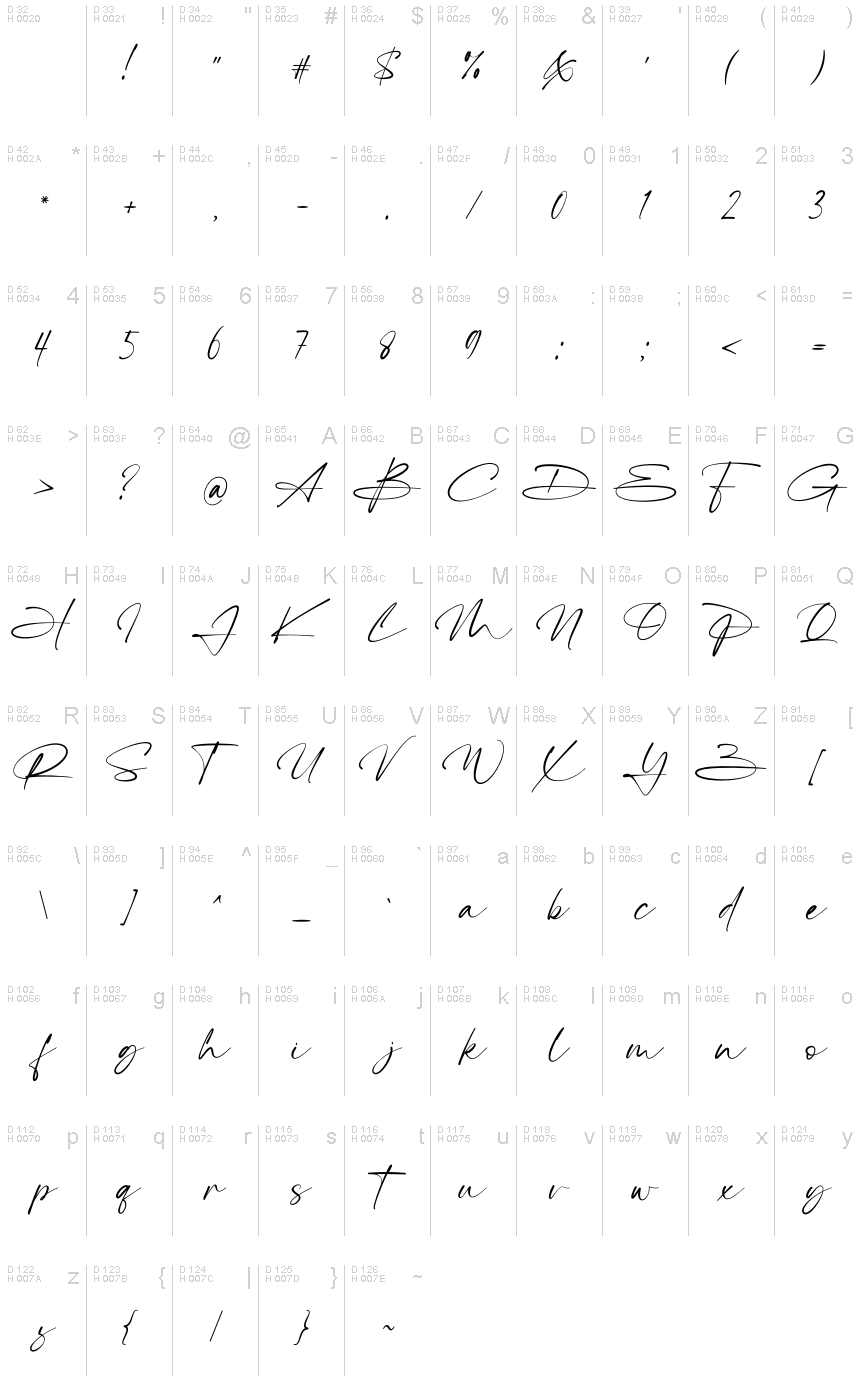
The Billion
The Billion font, designed by Lemonthe, exudes an elegant handwritten and signature style with its light, airy strokes. This free font captures a sophisticated charm, perfect for adding a personal touch to your designs. Its graceful curves make it ideal for branding projects, social media graphics, and event invitations where a touch of refinement is needed.